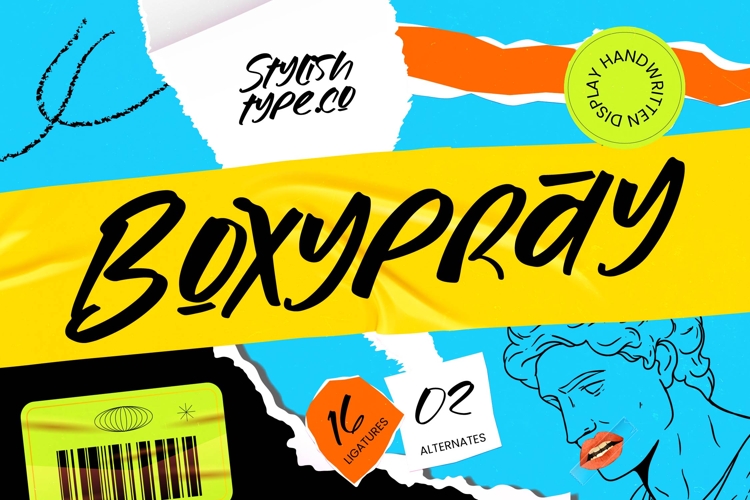
Boxypray - Display Handwritten Font
Elevate your creative projects with the raw, high-impact energy of Boxypray - Display Handwritten Font. This expressive typeface captures the authentic spirit of contemporary street art and urban aesthetics, offering a unique blend of casual handwriting and bold, graphic presence. Designed to command attention, its dynamic letterforms provide a handcrafted feel that injects personality into any visual composition, making it an essential tool for designers seeking a modern edge.
Discover the ultimate solution for impactful visual storytelling across a variety of mediums. Boxypray - Display Handwritten Font is perfect for streetwear branding, bold packaging design, and edgy editorial layouts. Whether you are crafting eye-catching posters, innovative social media graphics, or creative merchandise, this font serves as the centerpiece for vibrant identity systems and modern lifestyle products that need to stand out in a crowded marketplace.